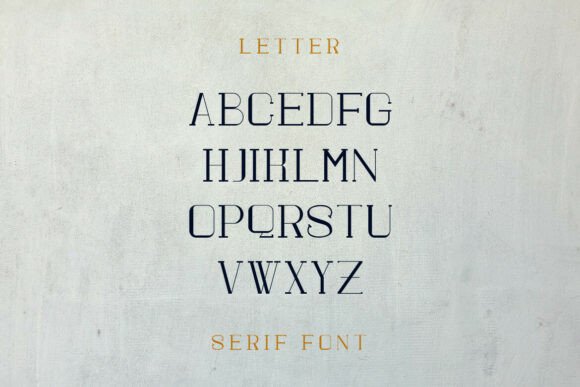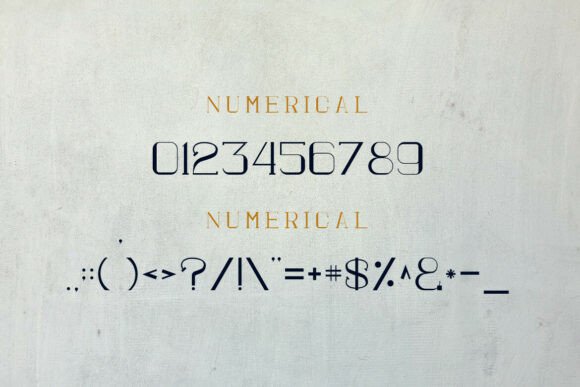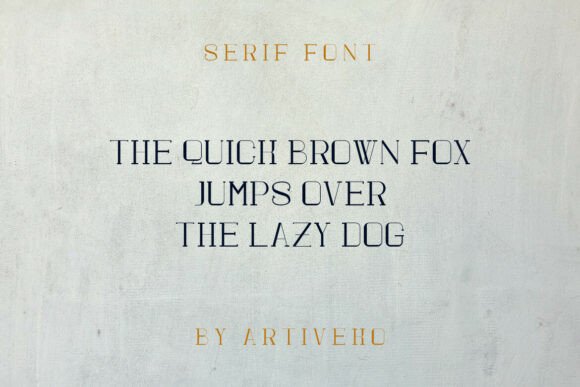
Introduction to Kaliabbu Font
Have you ever stumbled upon the perfect font for a creative project, only to find it stuck in your head long after the deadline passes? For designers, the quest for that elusive font can be a never-ending journey. But what if I told you that there’s a font that can transport you to a world of timeless elegance, where classic charm meets refined modernity? Enter the Kaliabbu Font, a game-changing design resource that’s about to become your new go-to.
With its elegant contrast, gentle curves, and sculpted serifs, the Kaliabbu Font is the perfect addition to any design project. Whether you’re working on an editorial layout, book cover, branding, invitation, or high-end packaging, this font brings a sophisticated presence that’s sure to elevate your work.
Key Features of Kaliabbu Font
- Unique and Creative Design: Kaliabbu Font is a high-quality design resource perfect for any creative project that requires a unique and stylish touch.
Honest Review: Kaliabbu Font
I recently had the opportunity to work with the Kaliabbu Font, and I must say it’s a great addition to any designer’s toolkit. The font is incredibly versatile, making it perfect for a wide range of creative projects.
What I love about the Kaliabbu Font is its unique blend of modern and classic elements. It’s ✨ clean, elegant, and highly legible, making it ideal for both digital and print designs.
- High quality and detailed design
- Perfect for a wide range of creative projects
However, I did encounter a few limitations with the Kaliabbu Font. The font can be a bit tricky to work with in certain software programs, and it’s not as widely supported as some other fonts.
Overall, I’m impressed with the Kaliabbu Font and would definitely recommend it to fellow designers. While it may have some limitations, its high quality and versatility make it a valuable addition to any design resource collection.
Common Use Cases for Kaliabbu Font
Kaliabbu Font is perfect for a variety of creative projects, including logos, graphics, presentations, and documents. Its versatility and high quality make it an excellent choice for designers and non-designers alike.